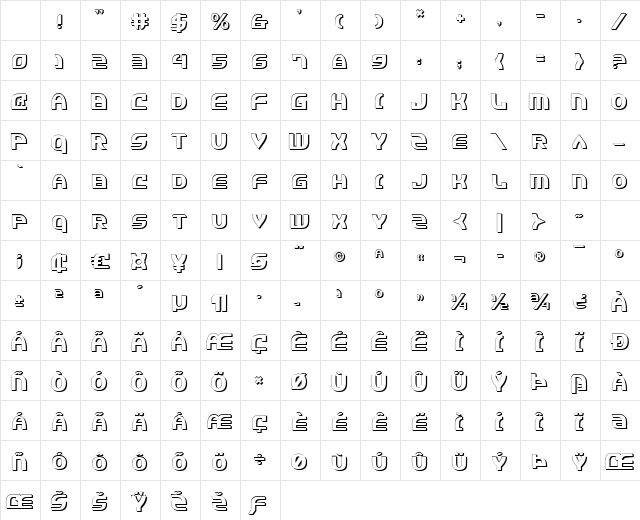
Complete Jannisaries Shadow glyph index. Displaying only characters natively supported by Jannisaries Shadow font.
Jannisaries is built around its visual character rather than neutral utility - its distinctive forms are designed to make an impression at display sizes.
Font Pairing: Pair with a clean neutral sans-serif for body copy to let Jannisaries's character lead without overwhelming the composition.
Pro Tip: Use Jannisaries exclusively at display sizes - it was designed to be seen, not read at length. Let a neutral companion handle body copy.